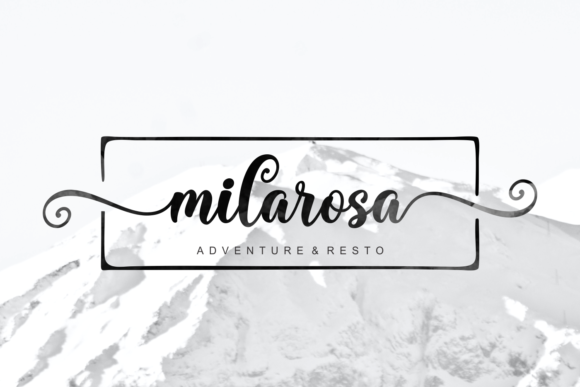
Introducing Shimory Font, a remarkable script font creation by Nun Creatype, exclusively designed to ignite your creative spirit. Shimory is not just a font; it's an artistic journey through the realm of modern typography. With its meticulously crafted strokes and intricate details, this font is bound to leave an indelible impression on your audience.
As a script font, Shimory possesses an undeniable charm and elegance. Its sweeping curves and graceful lines evoke a sense of sophistication and artistry. Whether you're creating captivating memes, designing eye-catching logos, or crafting stunning social media posts, Shimory is your go-to font for making a bold statement.
Dive into the depths of Shimory's character set and discover a world of possibilities. With its PUA encoding, you have effortless access to a treasure trove of glyphs and swashes, empowering you to unleash your creativity without limits. Experiment with different combinations, mix and match characters, and let your imagination soar.
Shimory is more than just a font; it's an experience. Its unique style ignites passion, ignites conversations, and captures hearts. Join the creative revolution and embrace Shimory as your font of choice. Let your designs shine, let your words resonate, and let your creations leave an unforgettable mark on the world.